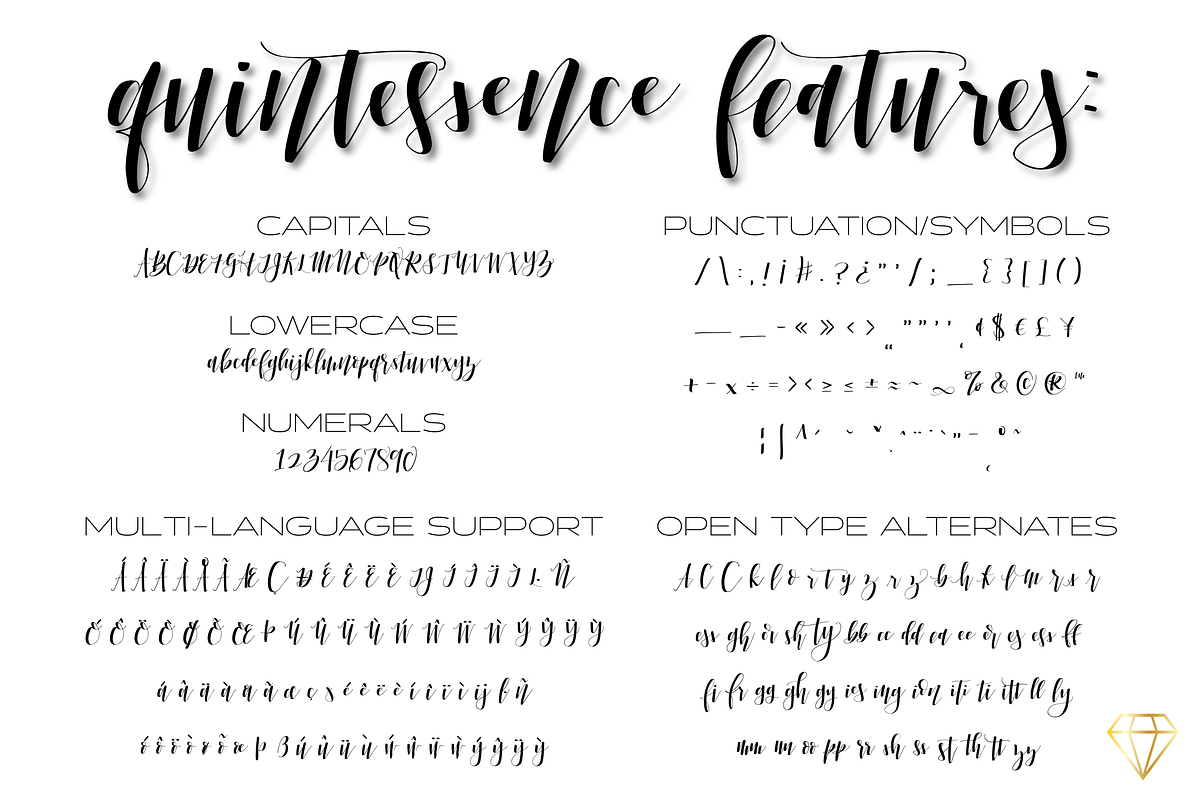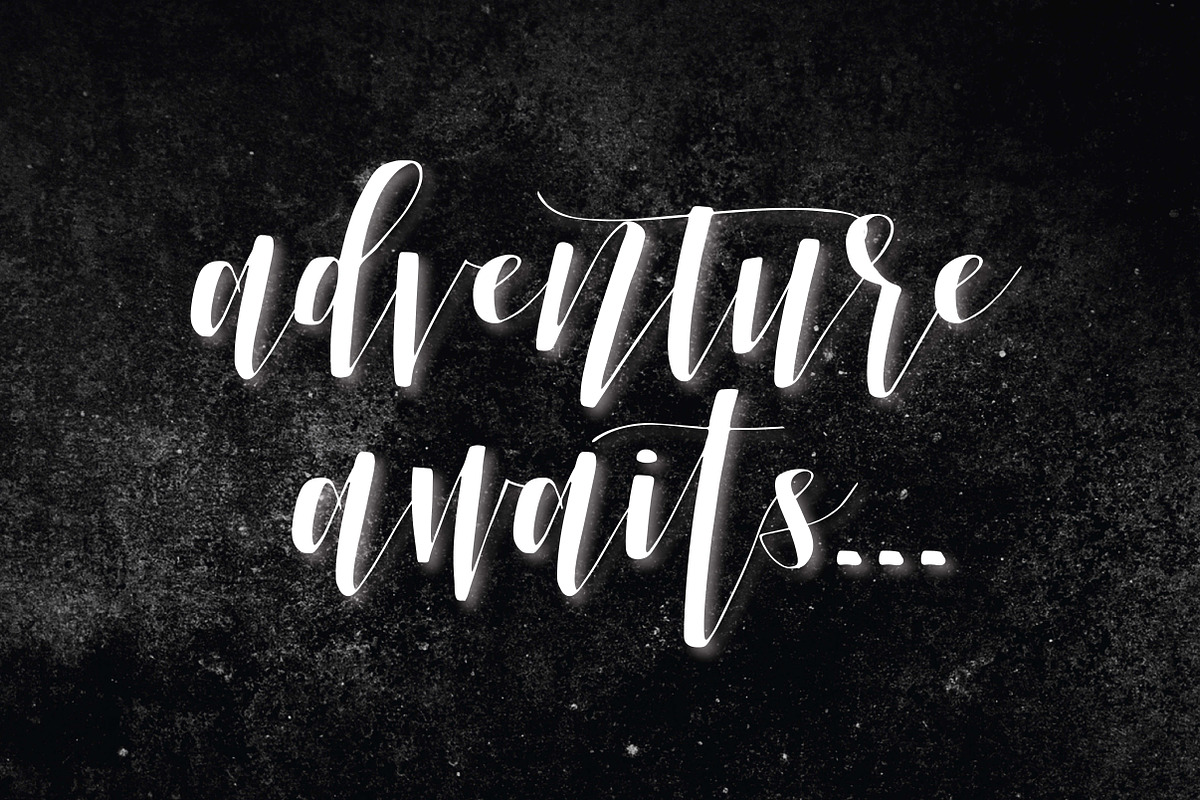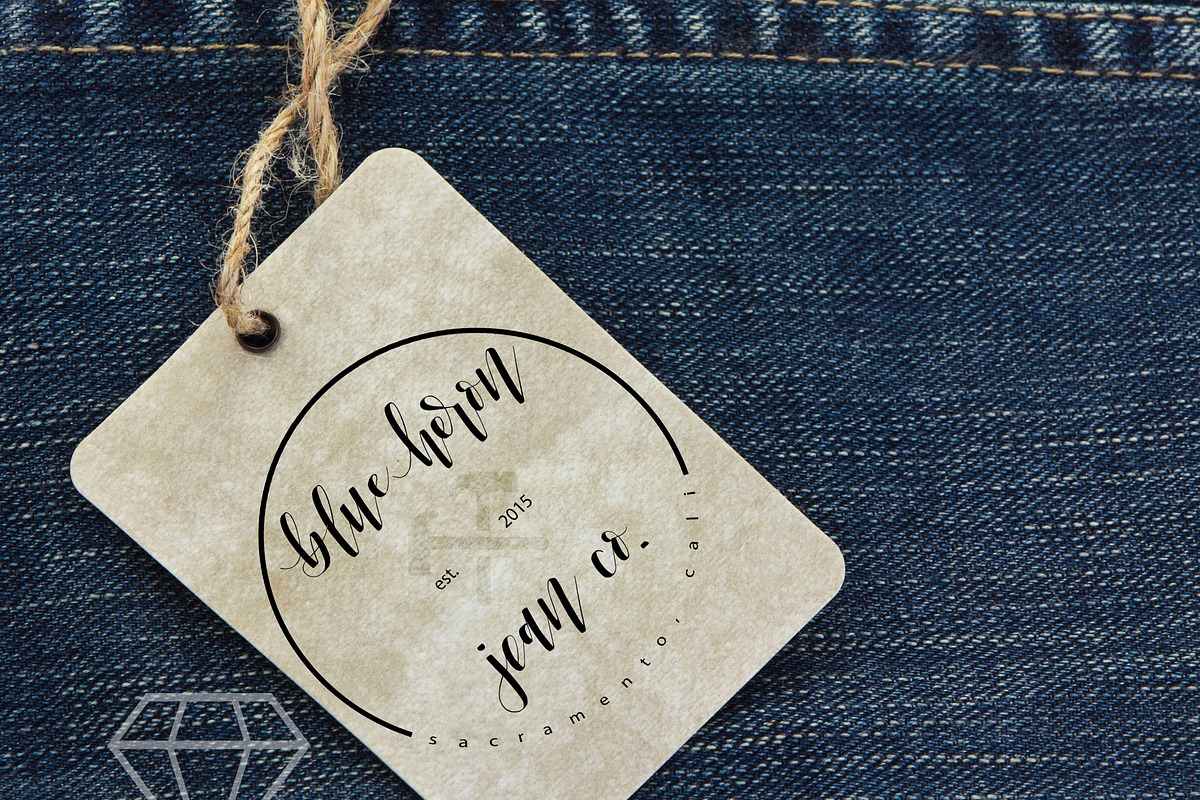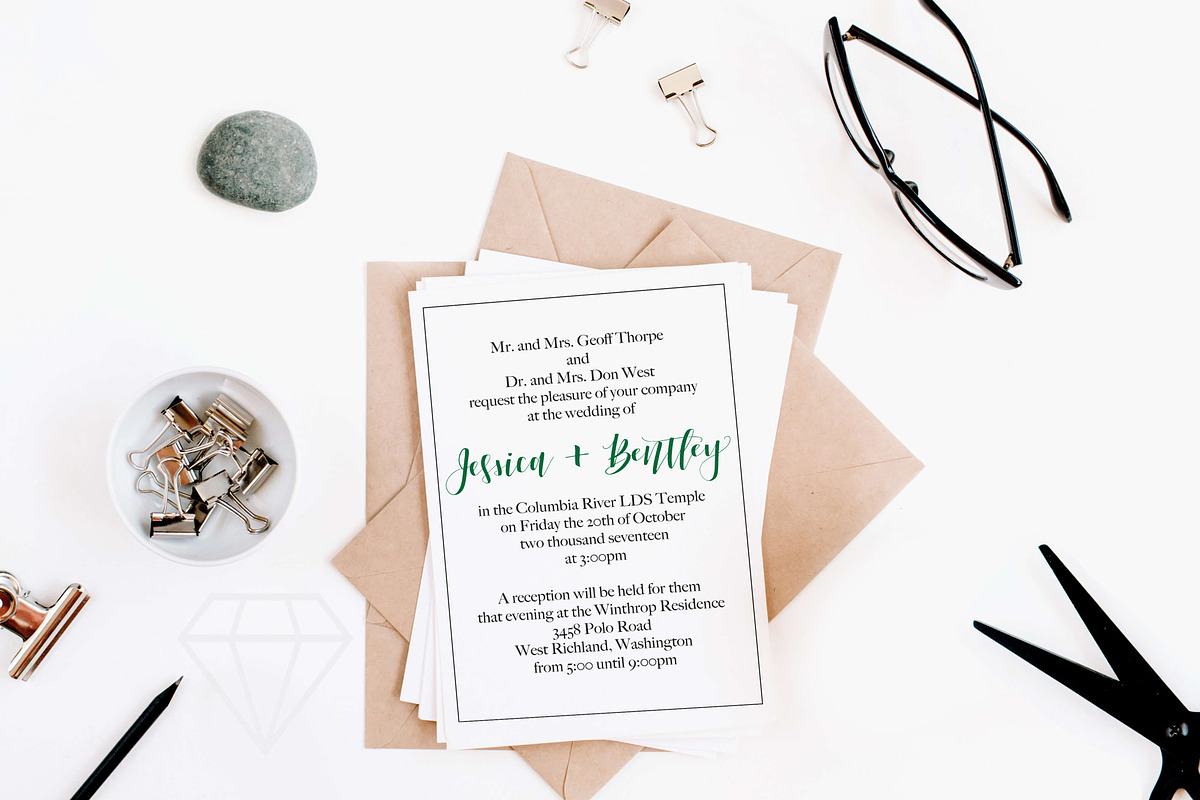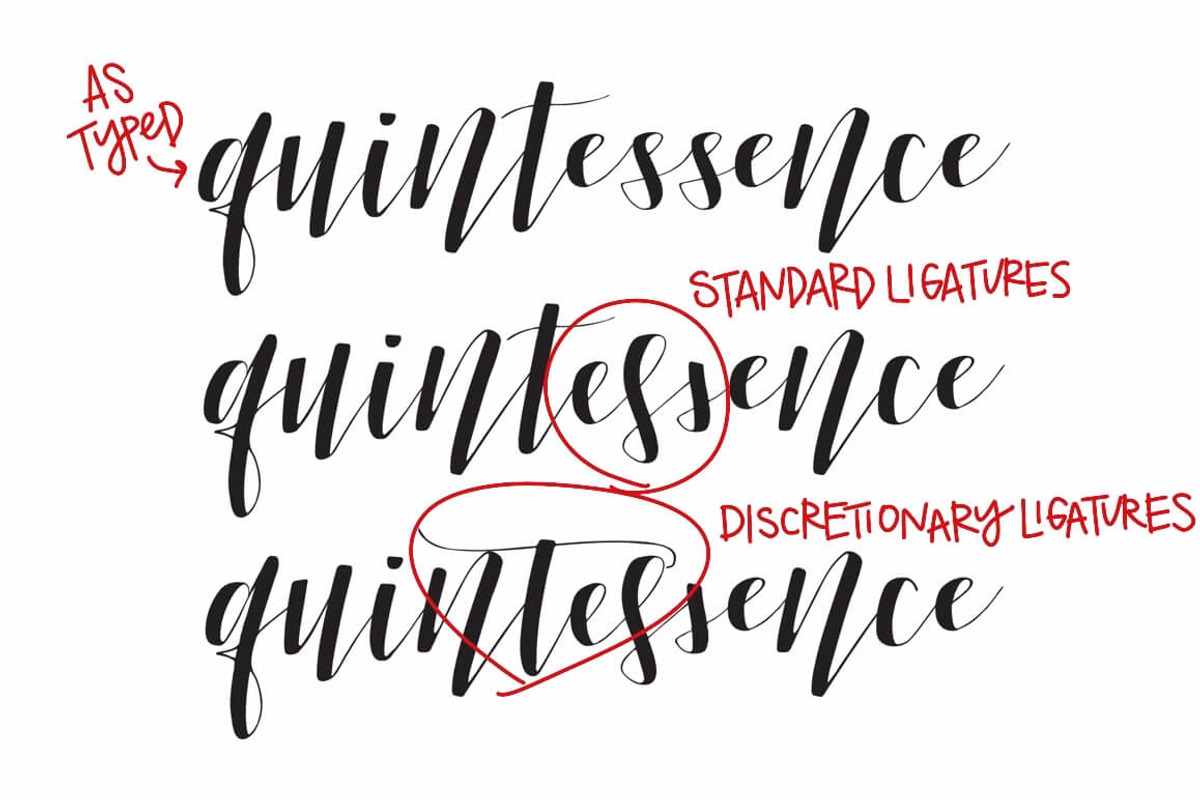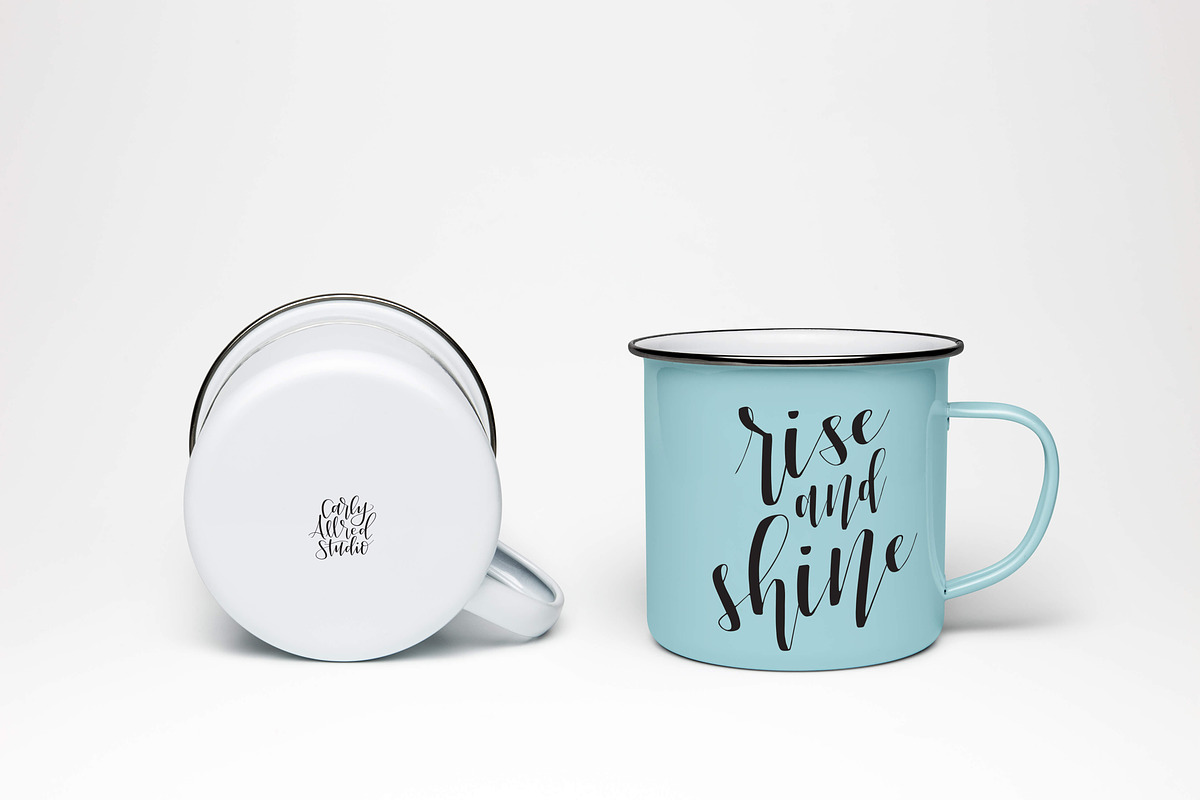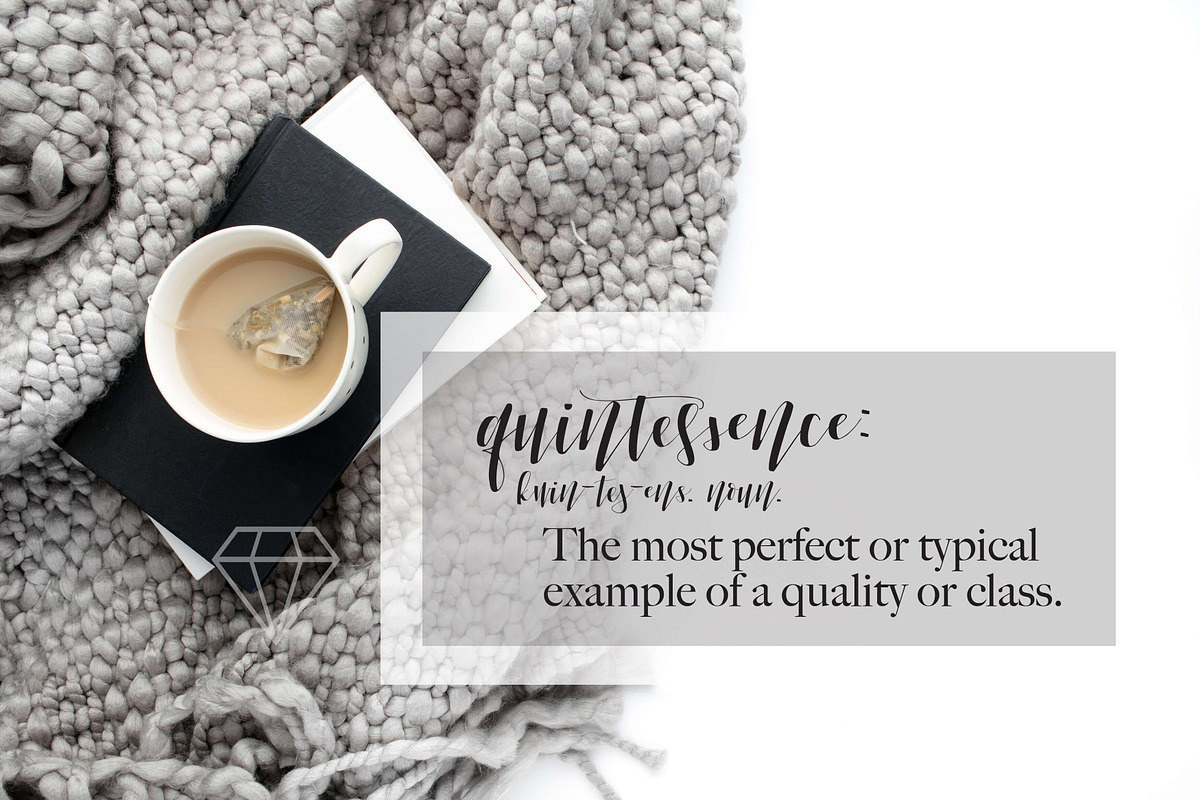
Quintessence Font
Everyone needs a classy brush script in their arsenal! From branding, to wedding announcements, to stationery design (or more!), Quintessence is your girl. She’s versatile, fun, and classy, all at the same time.
Speaking of features, this baby is loaded with TONS of extra ligatures (both standard and discretionary) that will give your piece a truly hand-done feel.